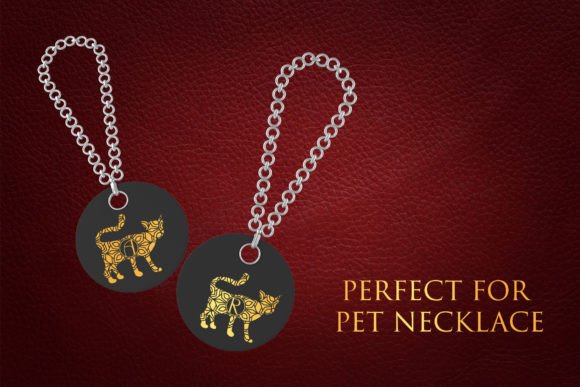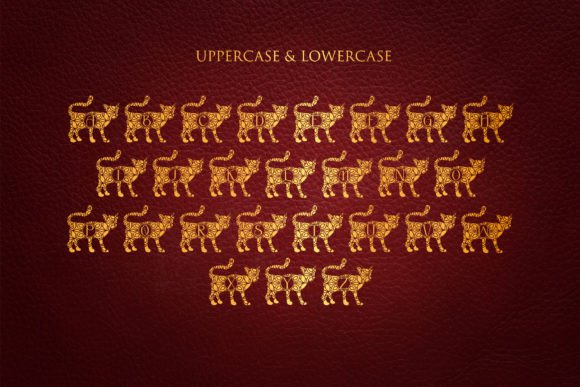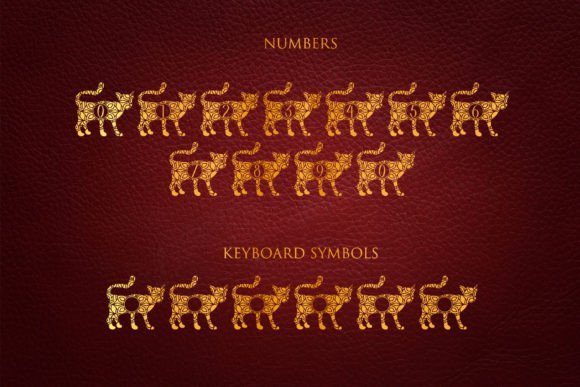
The Purrfect Font for Cat Lovers
You know that moment when you’re working on a creative project, and the perfect font eludes you? The words just aren’t coming together, and you’re about to give up. But then, like a cat landing on your keyboard, inspiration strikes. You start brainstorming, and suddenly, the Angry Cat Mandala Monogram Font pops into your head.
This adorable decorative typeface is a cat lover’s dream come true. Designed to enhance any creative project dedicated to kittens, the Angry Cat Mandala Monogram Font is the purrfect addition to your design arsenal. With its unique blend of mandala patterns and feline flair, it’s no wonder this font has become a favorite among designers. Whether you’re creating a cat-themed greeting card, a kitten-inspired poster, or a feline-focused website, the Angry Cat Mandala Monogram Font is the ultimate choice.
For designers, this font is a valuable asset, offering endless possibilities for creative expression. Its versatility and whimsical charm make it perfect for a wide range of projects, from children’s books to social media graphics. So, why settle for a boring font when you can unleash your inner cat lady with the Angry Cat Mandala Monogram Font?
Key Features of Angry Cat Mandala Monogram Font
- Unique Characteristics: A distressed, hand-drawn design with a distressed cat mandala monogram and bold, expressive lines
- Monogram Options: Includes a variety of monogram options, including initials, names, and dates
Designer Review: Angry Cat Mandala Monogram Font
I recently had the chance to work with the Angry Cat Mandala Monogram Font, and I must say, it’s a unique and quirky addition to any design project. Here’s my honest review:
- 🔹 The font’s quirky personality shines through in its intricate, hand-drawn design. It’s perfect for adding a touch of whimsy to children’s books, magazines, or websites.
- 🔹 The font’s high contrast and bold lines make it easy to read, even at smaller sizes.
- 🔹 The font’s versatility allows it to be used for a wide range of projects, from logos to invitations.
- ⚠️ The font’s complex design may not be suitable for body text, as it can be difficult to read at larger sizes.
- ⚠️ The font’s uniqueness may not be to everyone’s taste, and some designers may find it too playful or distracting.
- ⚠️ The font may not be suitable for corporate or professional branding, as it may not convey a sense of seriousness or authority.
The Angry Cat Mandala Monogram Font is a fun and creative addition to any design project. While it may have some limitations, its unique personality and versatility make it a great choice for designers looking to add a touch of whimsy to their work.
The Angry Cat Mandala Monogram Font is perfect for:
1. Creating eye-catching titles and headings.
2. Adding a touch of whimsy to your designs.
3. Creating unique and personalized gifts.
4. Adding a playful touch to your branding and marketing materials.